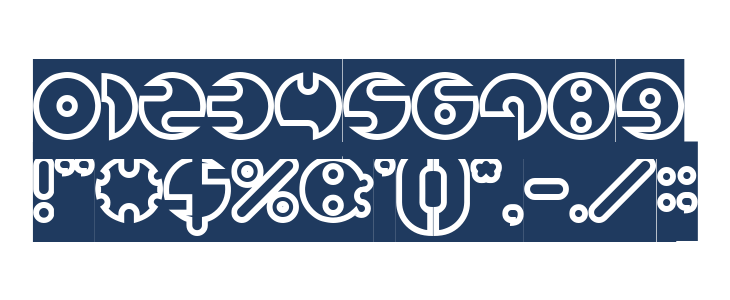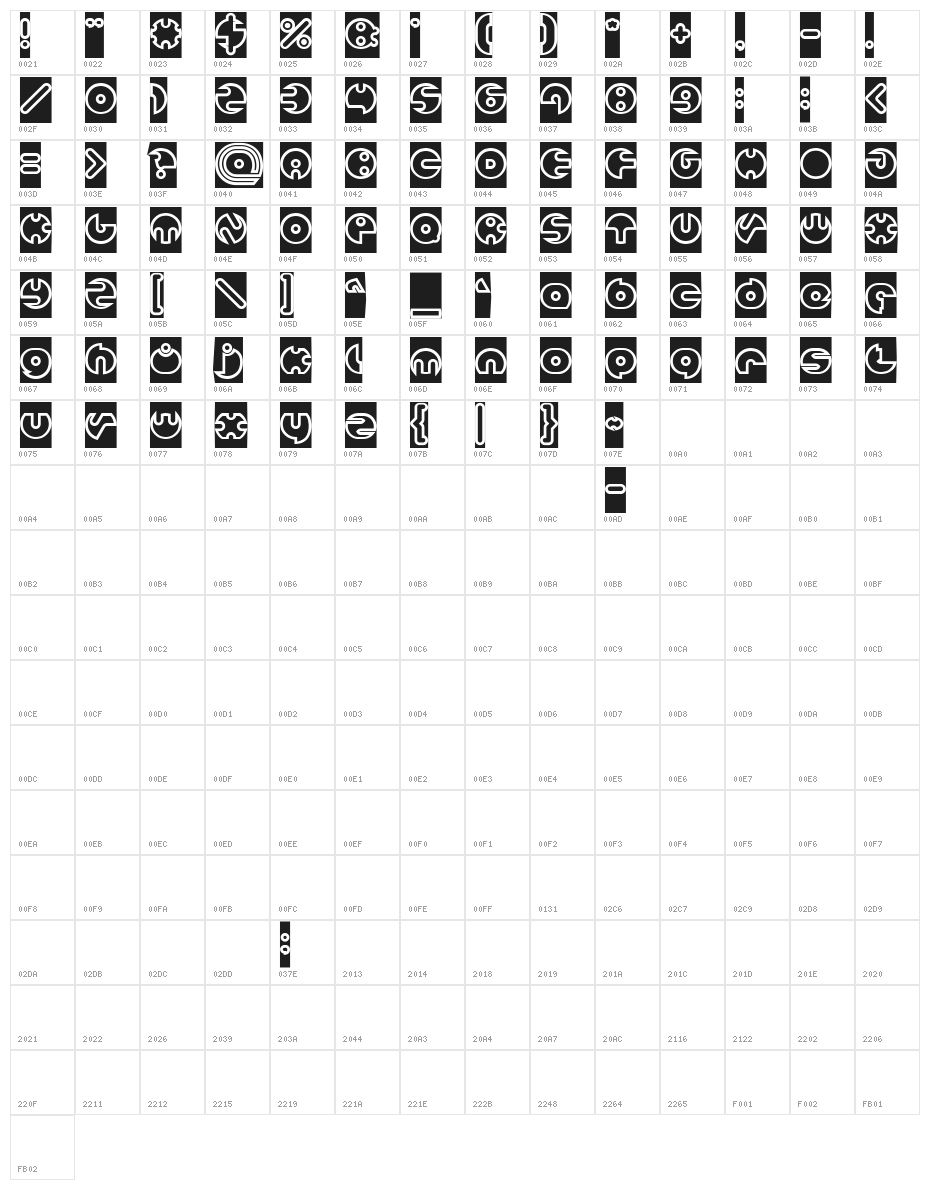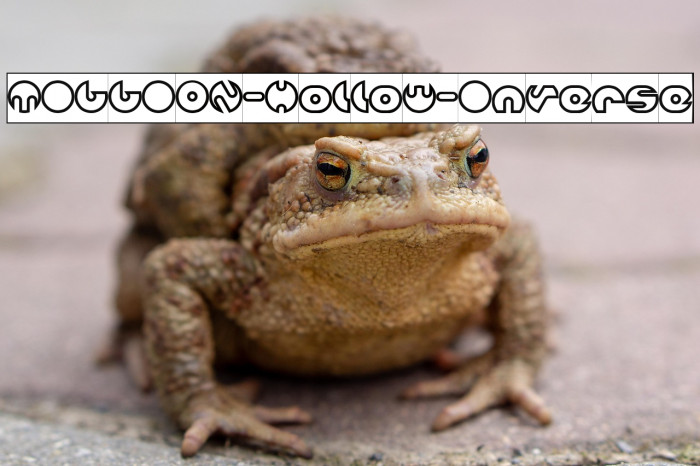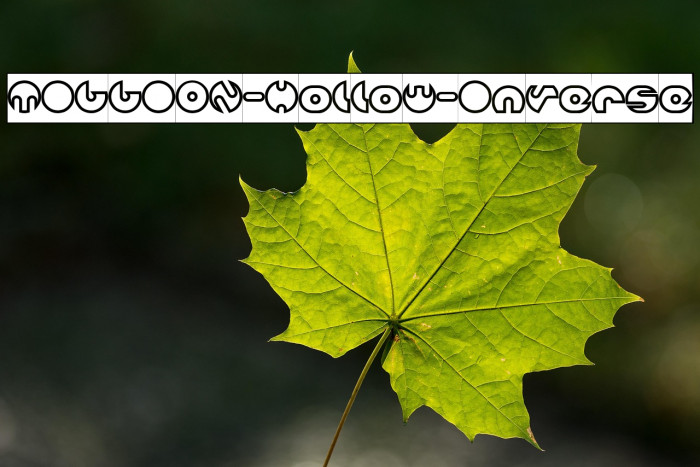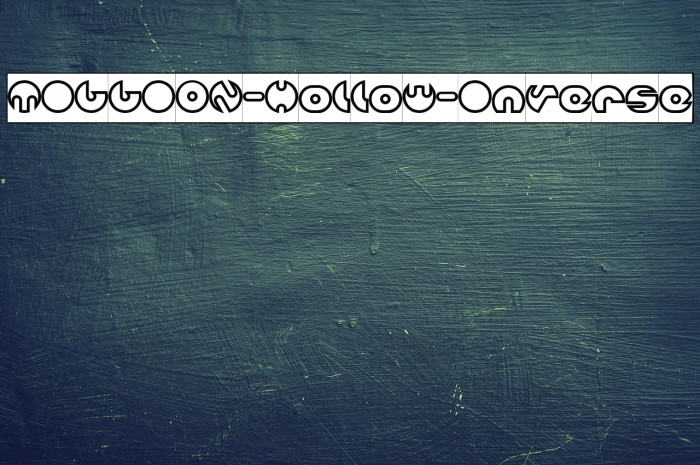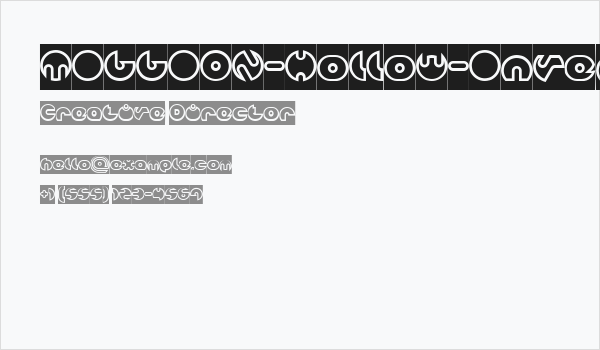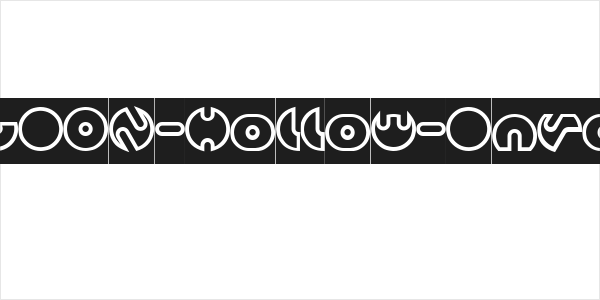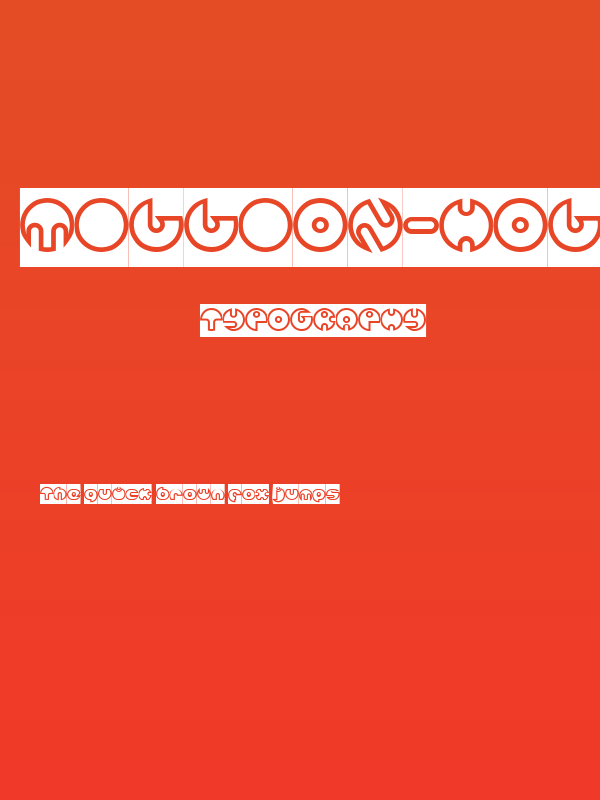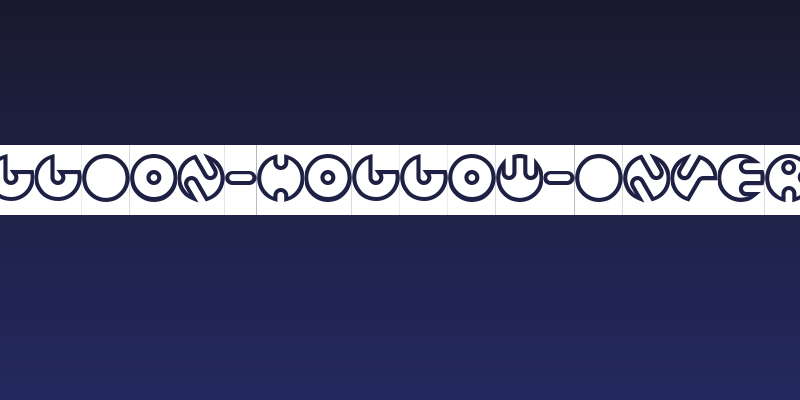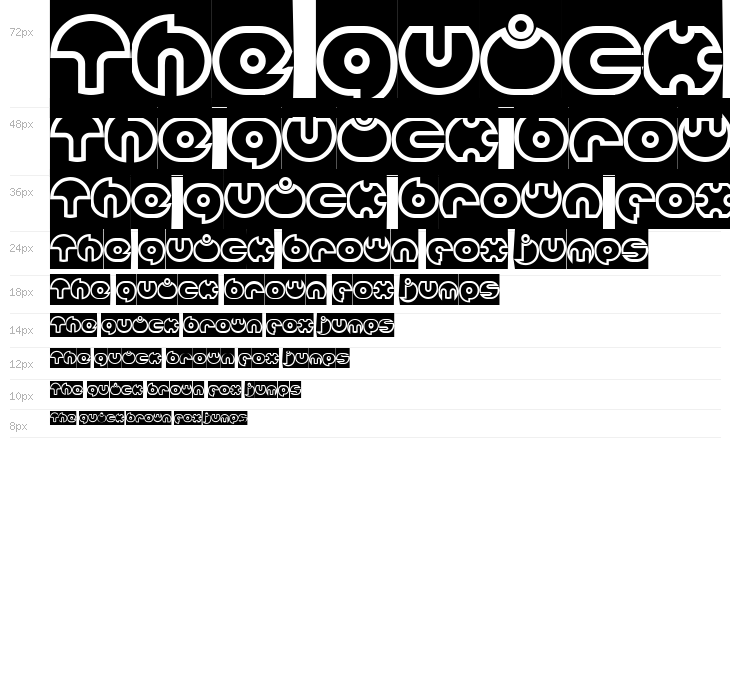
MILLION-Hollow-Inverse Font
MILLION-Hollow-Inverse Description
This font features a hollow, inverse design with a futuristic and geometric aesthetic. Each character is crafted with bold outlines and a unique, circular motif that gives it a distinct, modern look. The uppercase and lowercase letters maintain a consistent style, with rounded edges and a playful, artistic flair. Numbers and special characters follow the same design principles, ensuring a cohesive appearance across all elements. The font's hollow nature allows for creative use of background colors or textures to shine through, making it ideal for eye-catching designs.
Proposed ProjectsIdeal for sci-fi themed projects, modern branding, digital artwork, and creative posters.